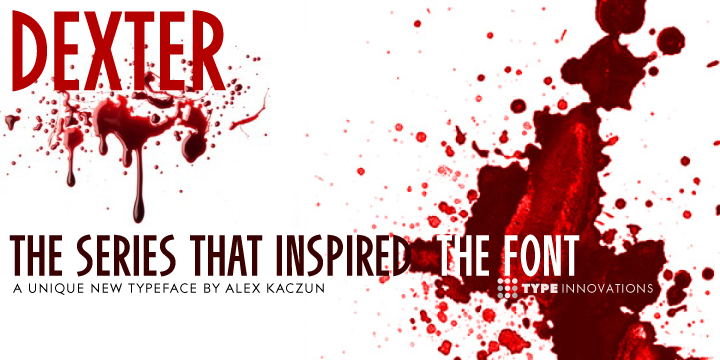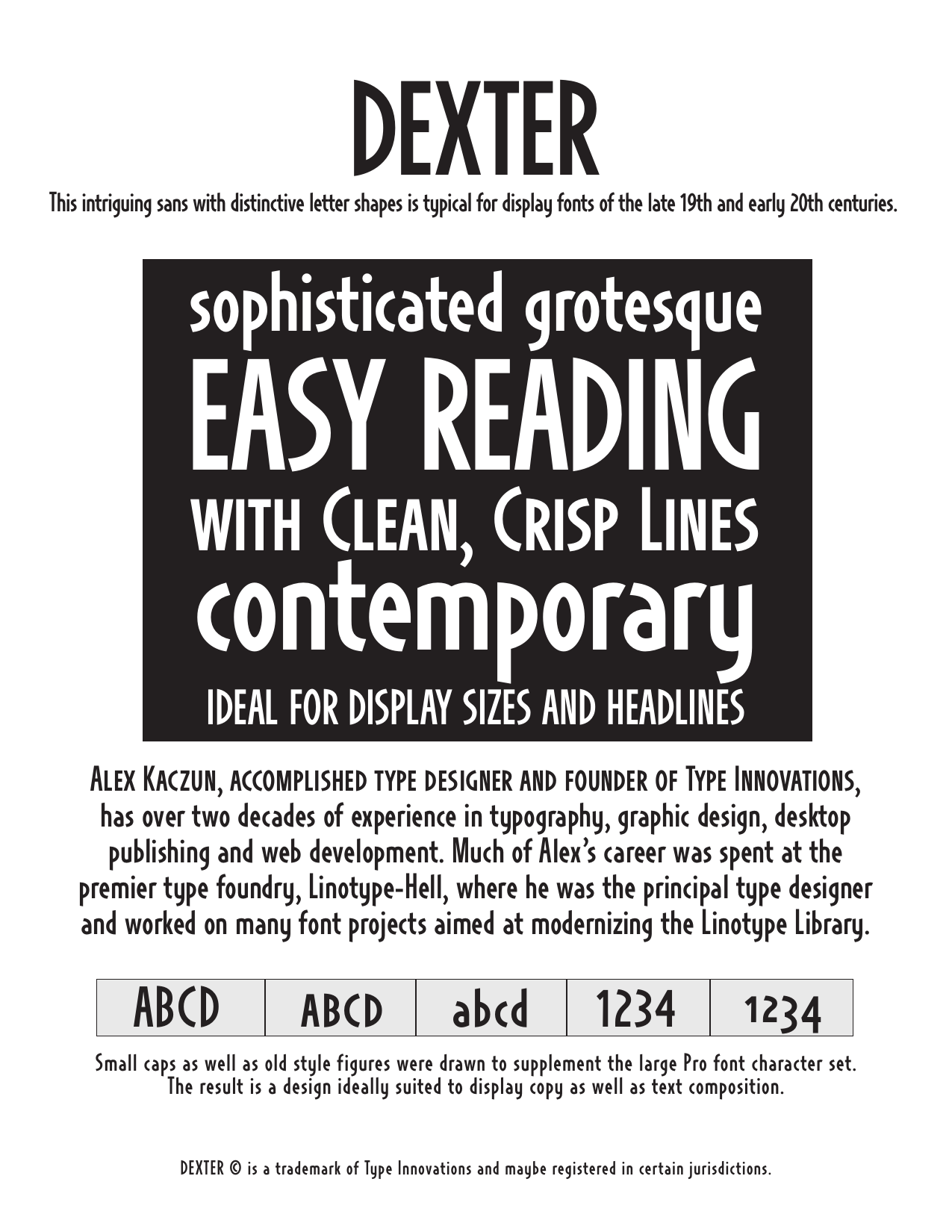
Dexter Collection
Dexter
RegularDexter Sm Cap
RegularDexter is an original new typeface creation by Alex Kaczun. It is a warmer, more sophisticated grotesque that is both fun and interesting. Its tight letter spacing and narrow proportions make the typeface particularly well suited for display sizes and headlines.
This intriguing sans with distinctive letter shapes is typical for display fonts of the late 19th and early 20th centuries. Dexter is ideal for titles and headlines looking for impact and style. Dexter is also an excellent choice for magazines, books, posters, brochures, flyers, etc.
The large Pro font character set, which supports most Central European and many Eastern European languages, also includes a small caps font along with old style figures.